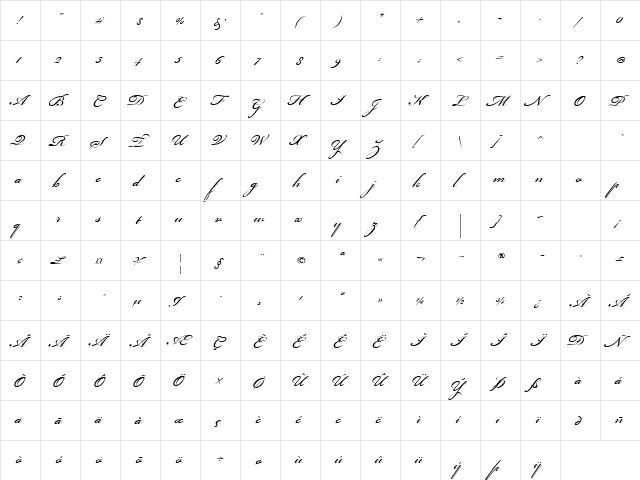
BickhamScriptMM Regular
Design Context for BickhamScriptMM Typeface
BickhamScriptMM flows with the natural rhythm of handwritten lettering, making it ideal for designs that call for warmth and personal expression.
Font Pairing: Combine BickhamScriptMM with a simple geometric sans for maximum contrast — the tension between flowing curves and clean structure is a classic typographic pairing.
Pro Tip: Pair BickhamScriptMM with a clean sans-serif for supporting text. The contrast between fluid script and geometric structure creates an elegant typographic hierarchy.